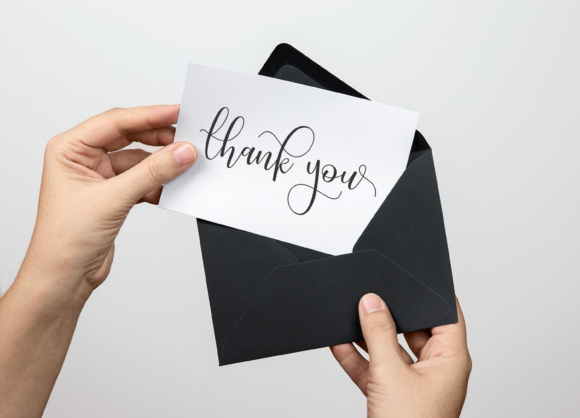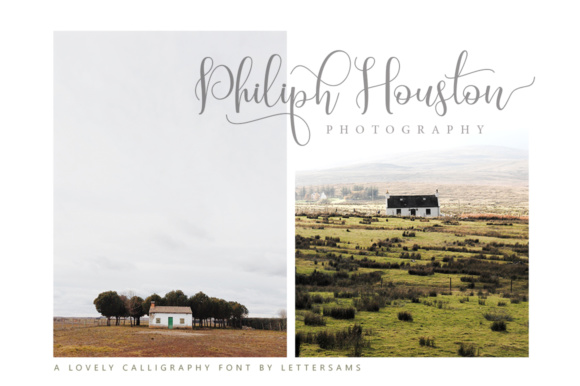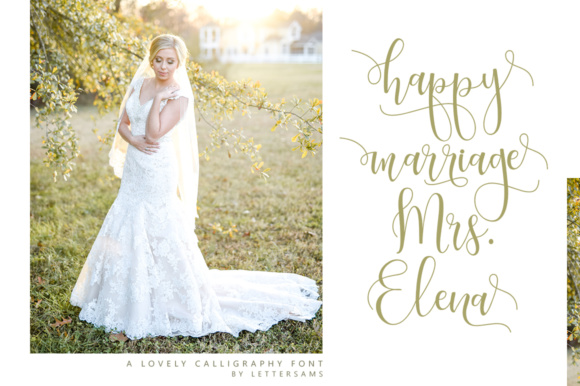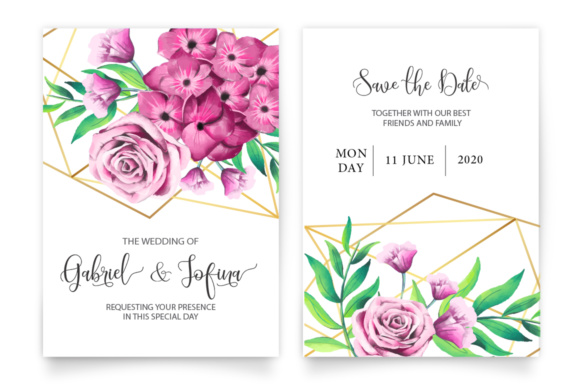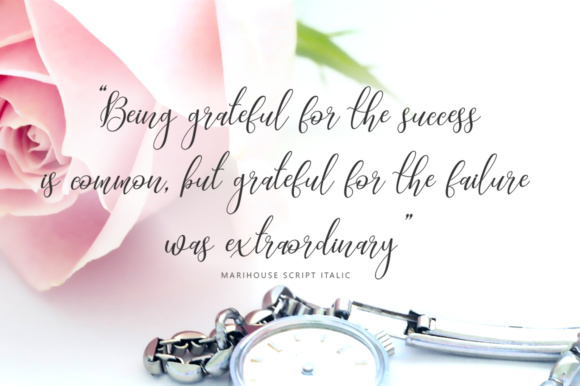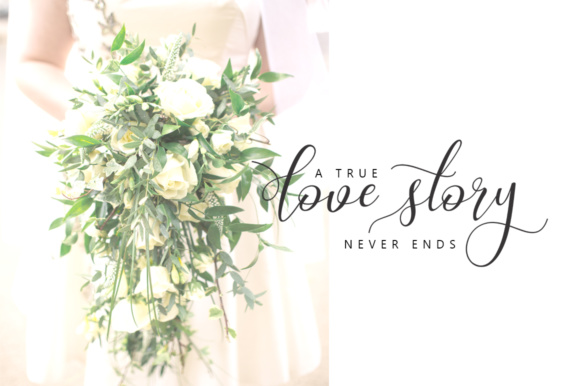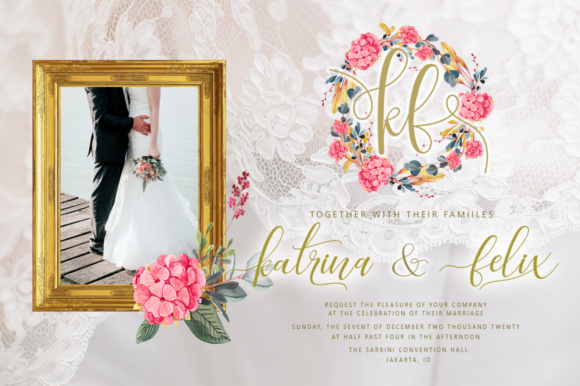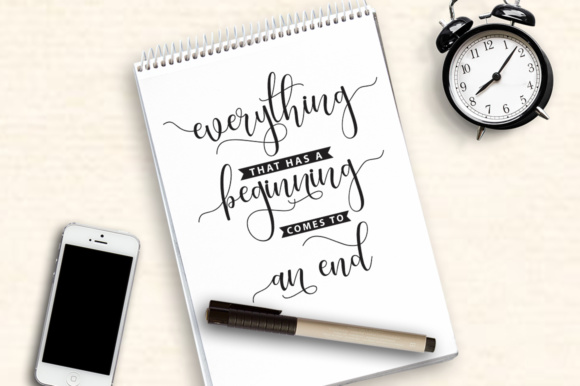
Marihouse Script Font
About Marihouse Script Font
Marihouse Script is a beautiful calligraphy design, including Regular and italic. This font is enough with a sweep. Can be used for various purposes. such as logos, product packaging, wedding invitations, branding, titles, signs, labels, signatures, book covers, posters, quotes and more.